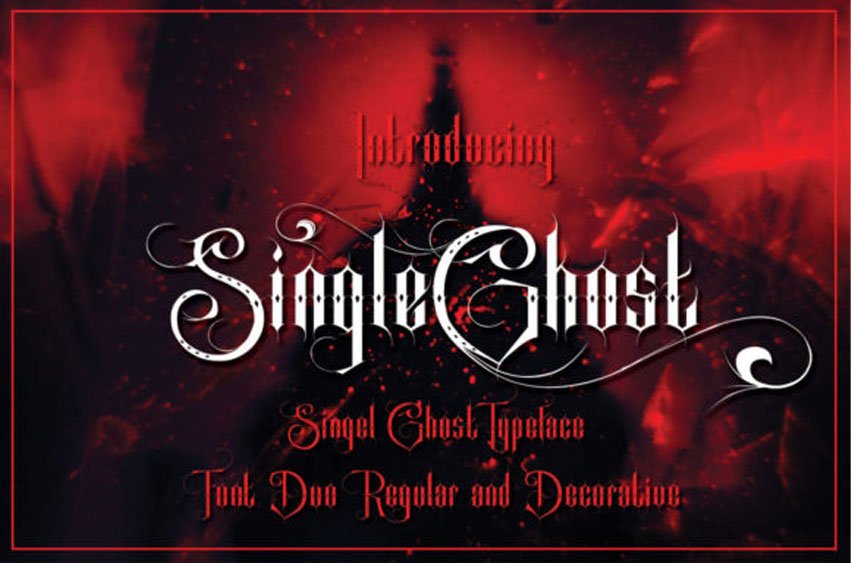
Single Ghost FonT Inspired by Gothic horror, Single Ghost is a spooky and delicate display font.
It will turn any horror-themed design project into a stand out!